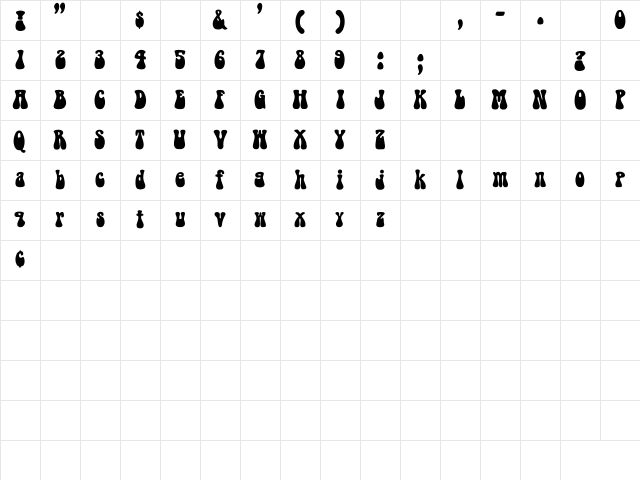
BellBottom Regular Free Font
BellBottom Regular
Design Context for BellBottom
BellBottom is a composed and adaptable typeface that performs quietly and consistently across a wide range of design contexts.